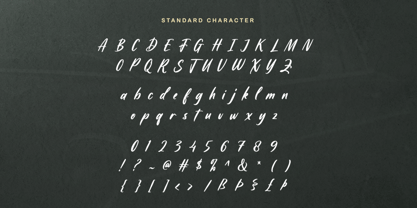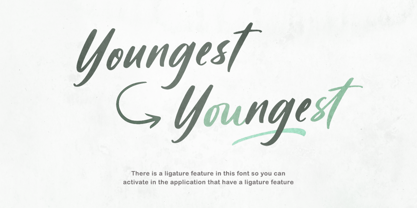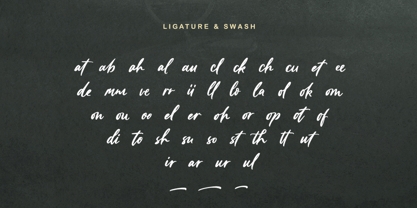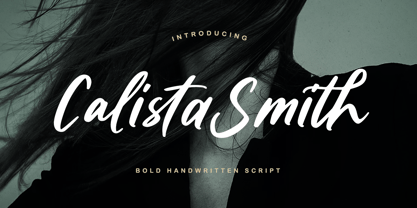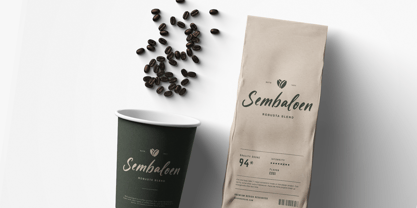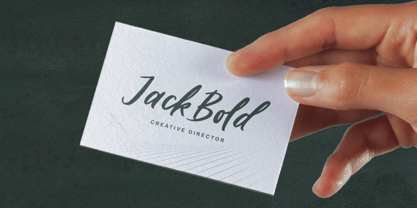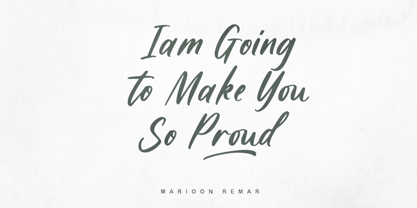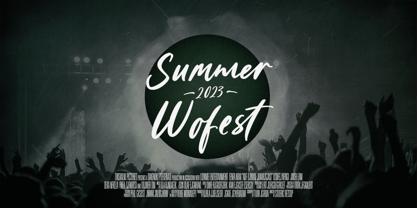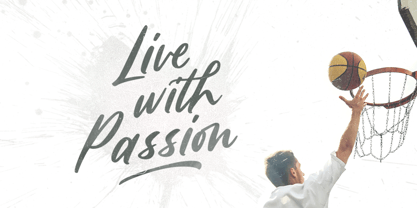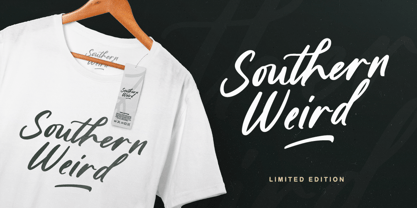
Calista Smith
The Calista Smith Font Family was designed by Sarid Ezra, Dzikrul Aulia and published by Bale Type. Calista Smith contains 1 styles. More about this family
Calista Smith is a bold handwritten script that have many ligatures. With simple yet strong looks, you use this font for various projects, such as for advertisement, cover of book or magazine, logo, quotes, poster design, personal branding, promotional materials, logotype, product packaging, etc. Natalie Smith also support Multi Language!